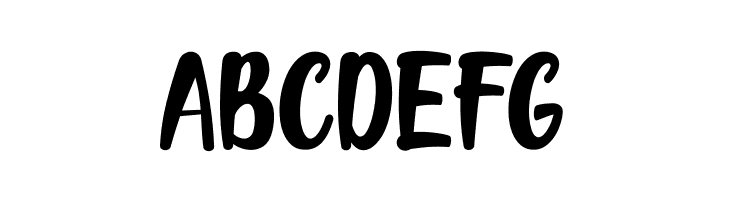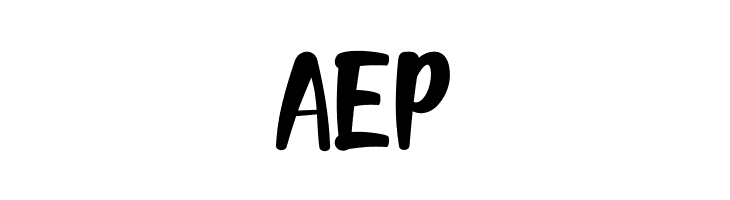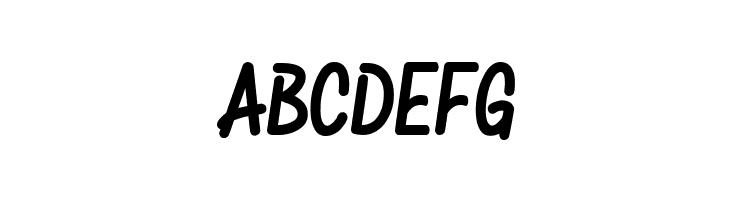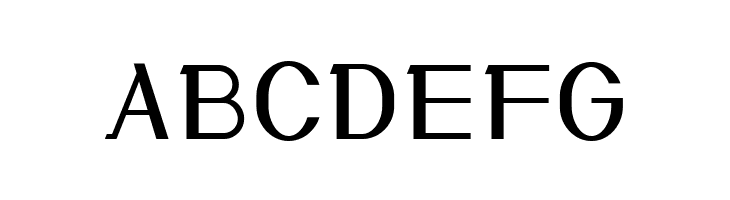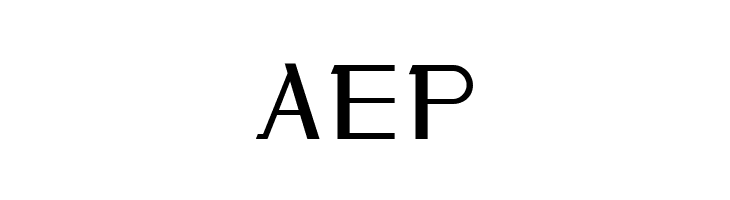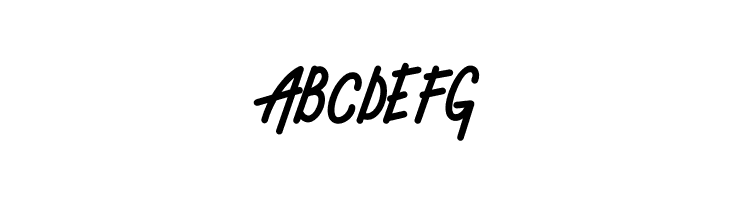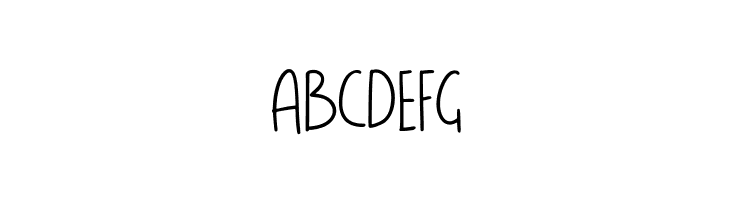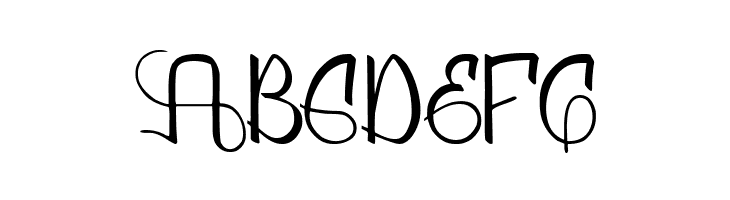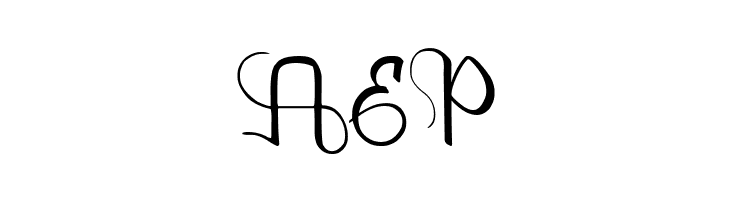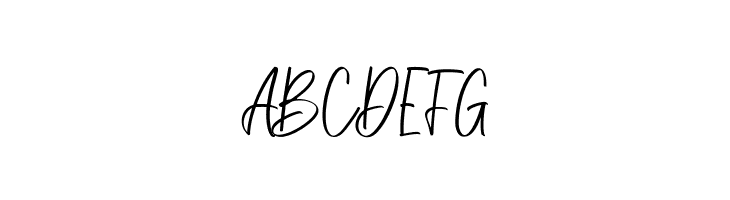
A clean, modern font with balanced proportions and excellent readability.
A playful, handwritten font with smooth, flowing lines and a casual style.
A bold, playful handwritten font with thick strokes and rounded edges.
A playful, bold handwritten font with smooth curves and a casual style.
An artistic and decorative font with flowing, interconnected strokes and elegant swirls.
A bold, energetic handwritten font with dynamic strokes.
An elegant, flowing script font with a sophisticated handwritten style.
A flowing, handwritten font with elegant cursive strokes.